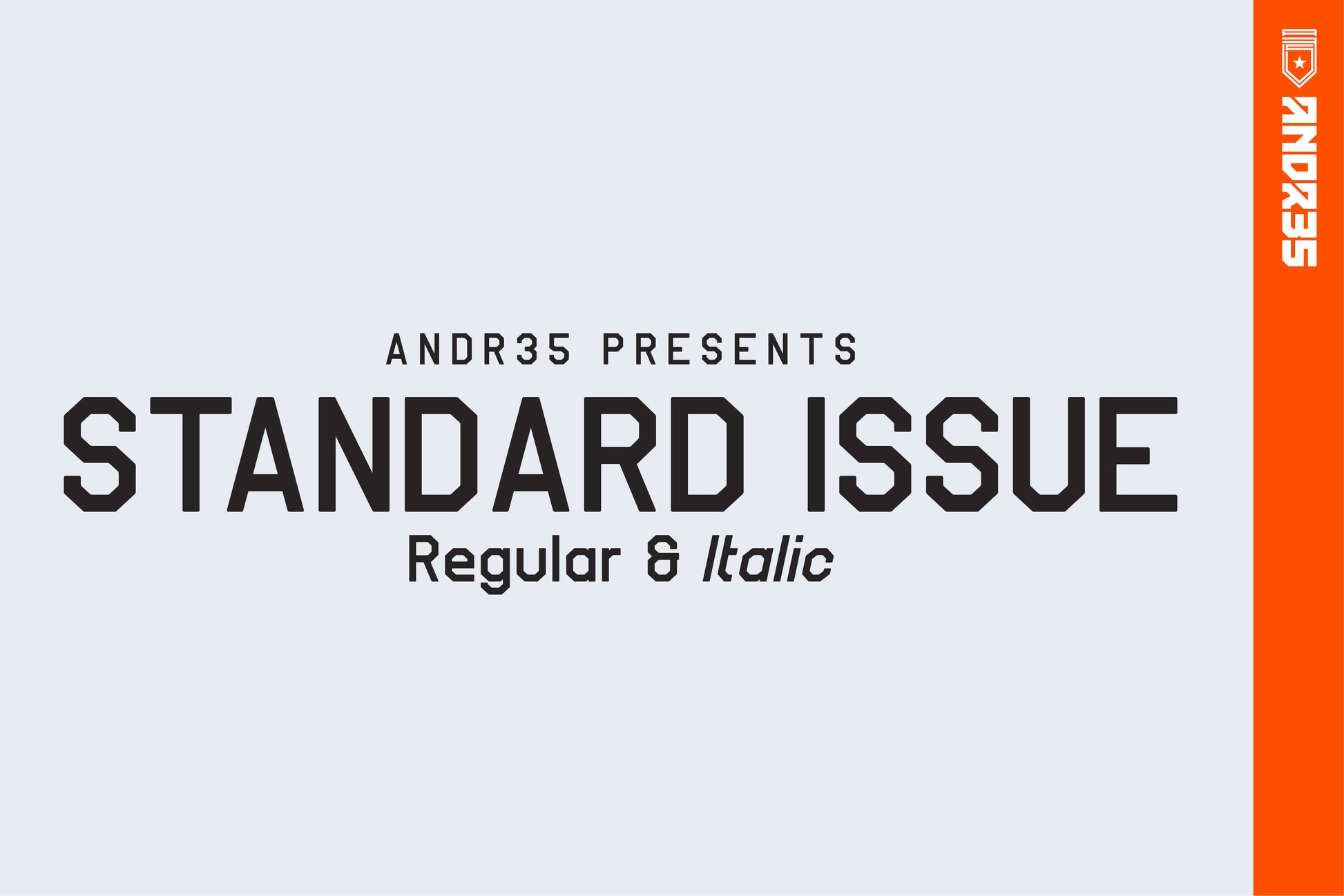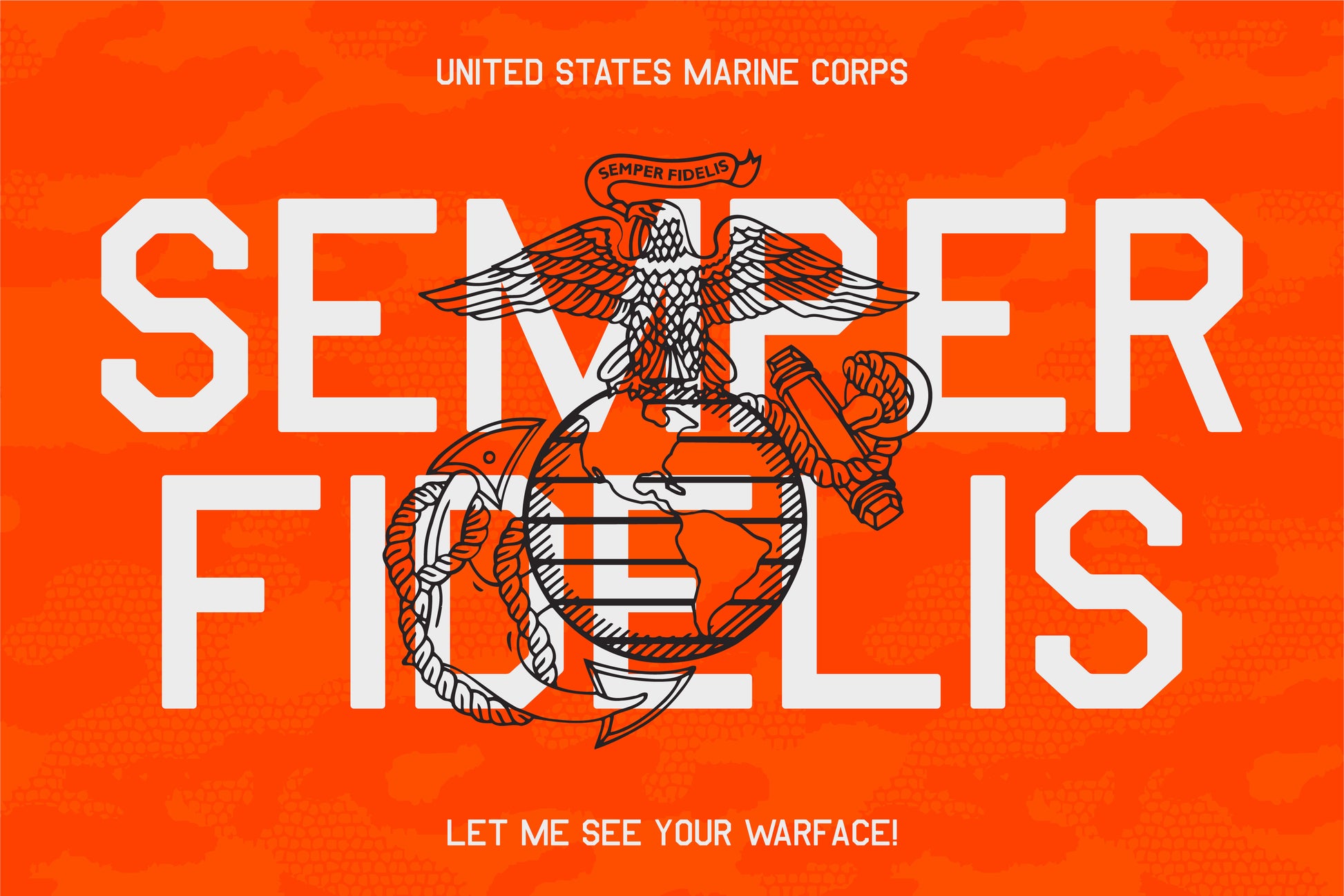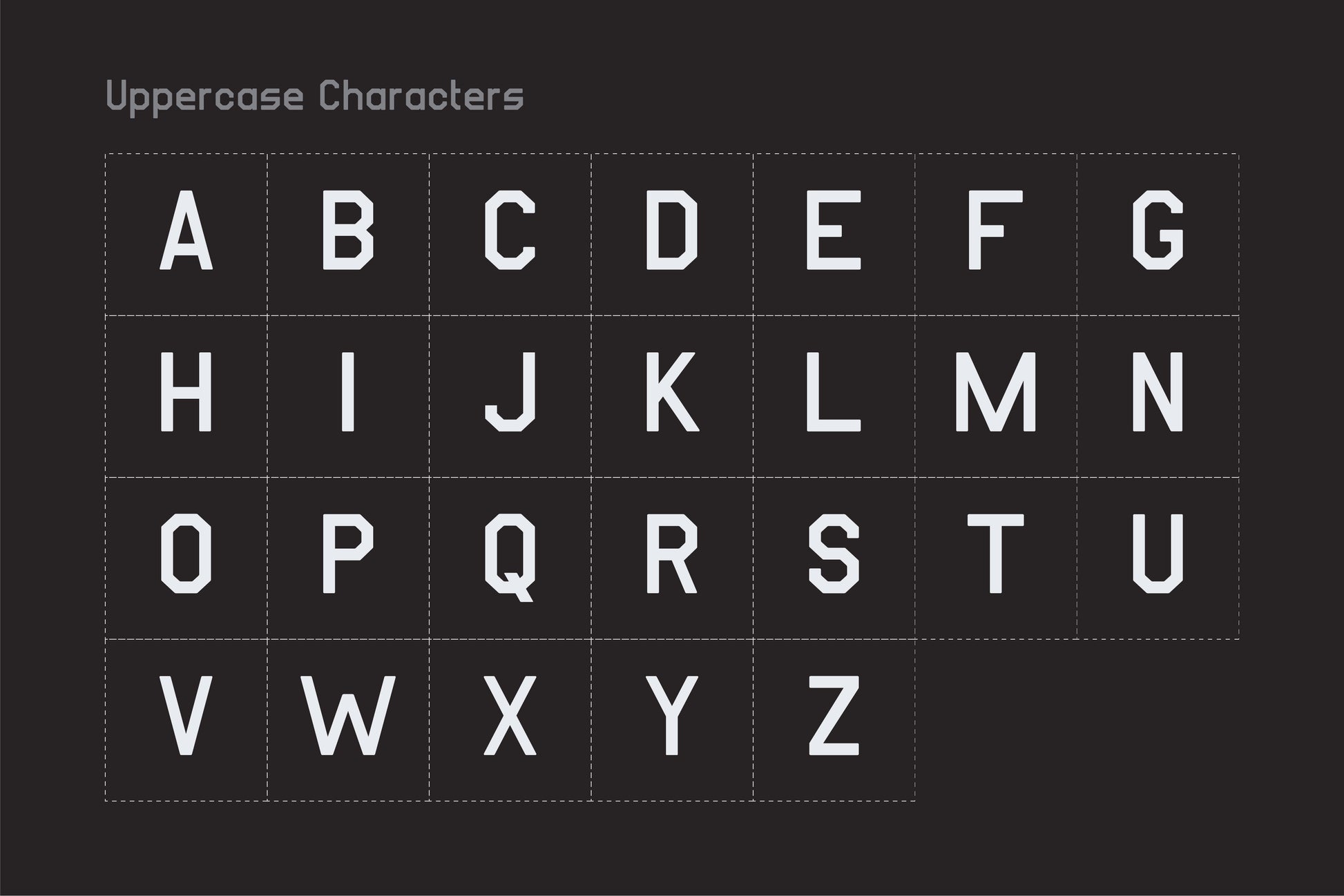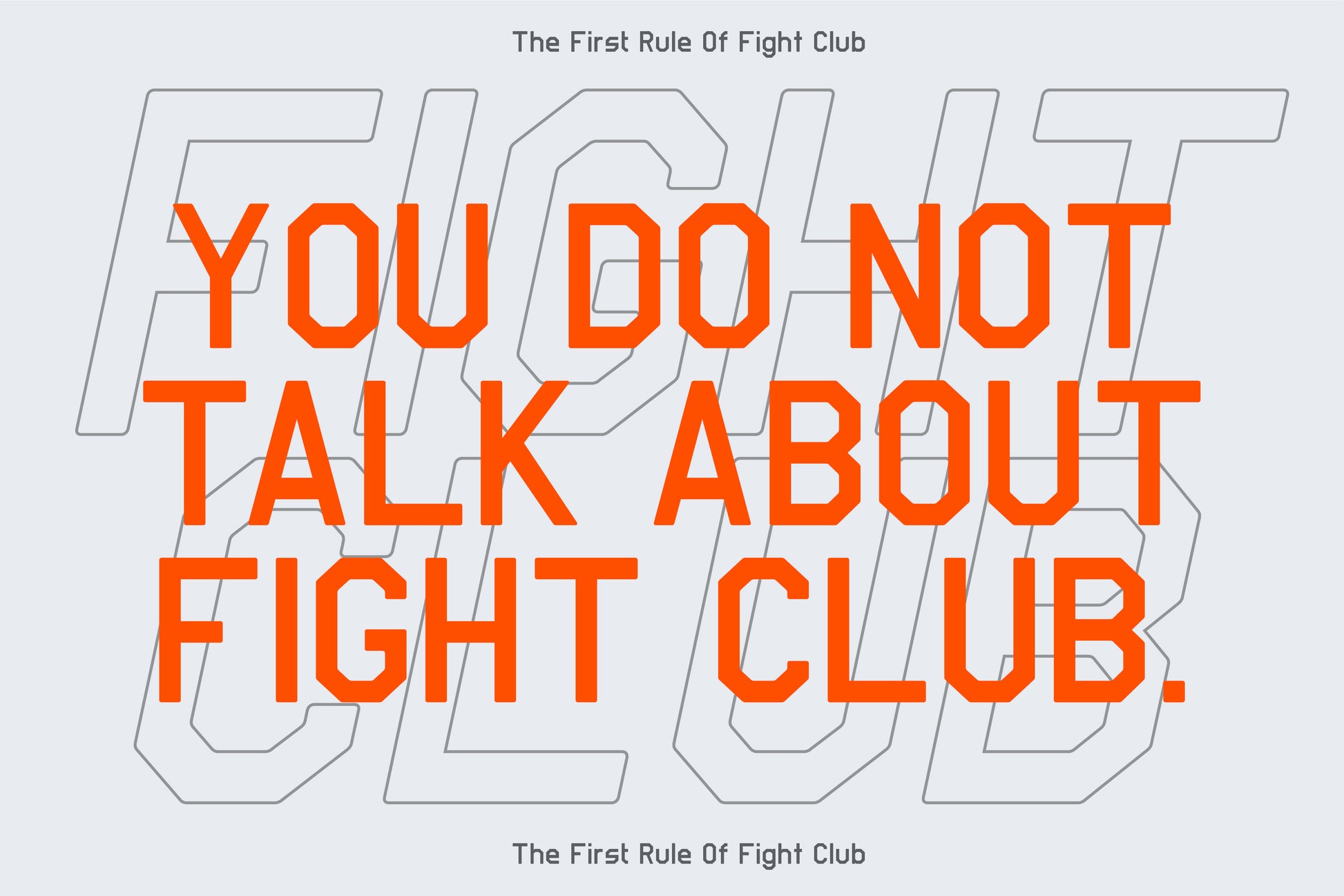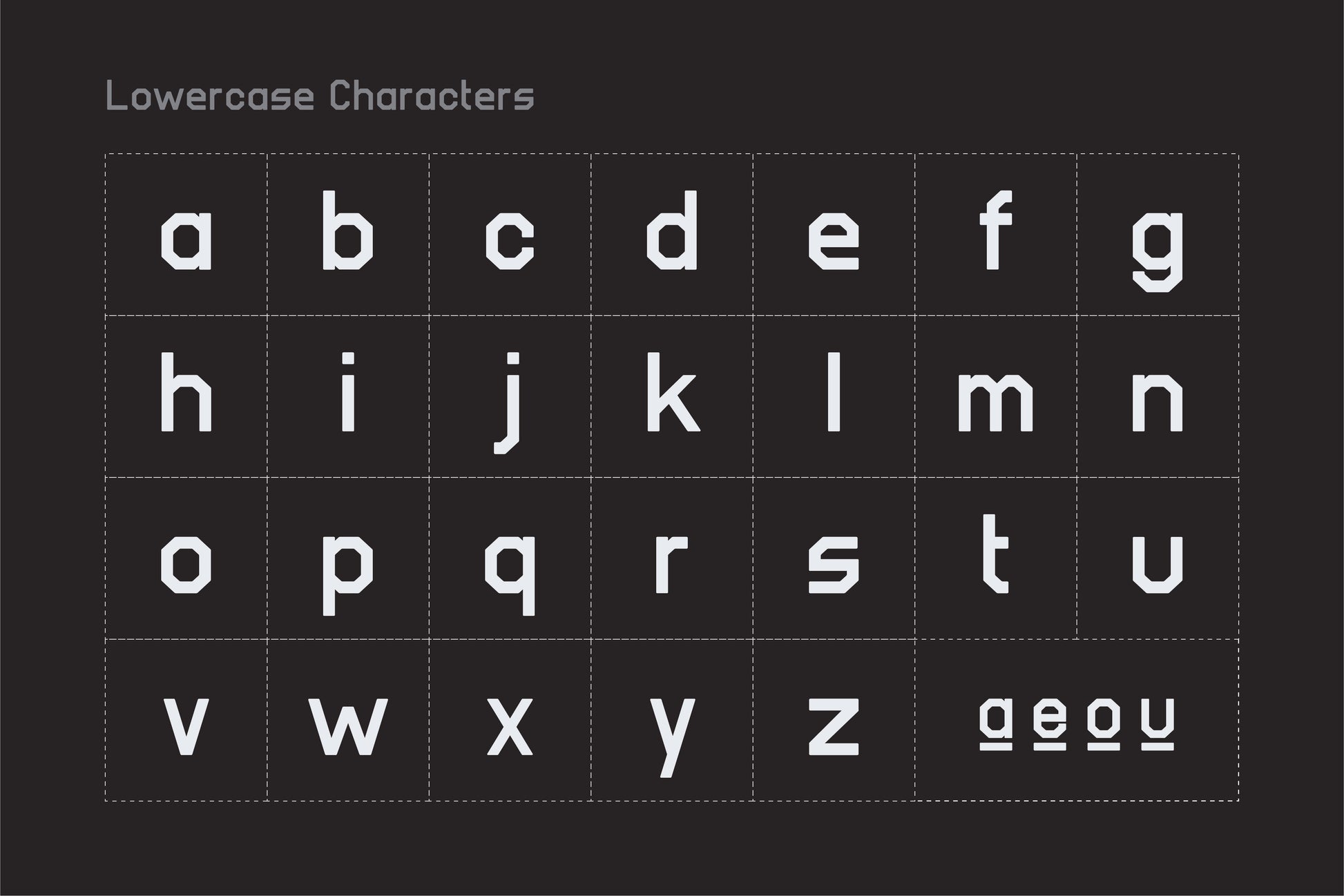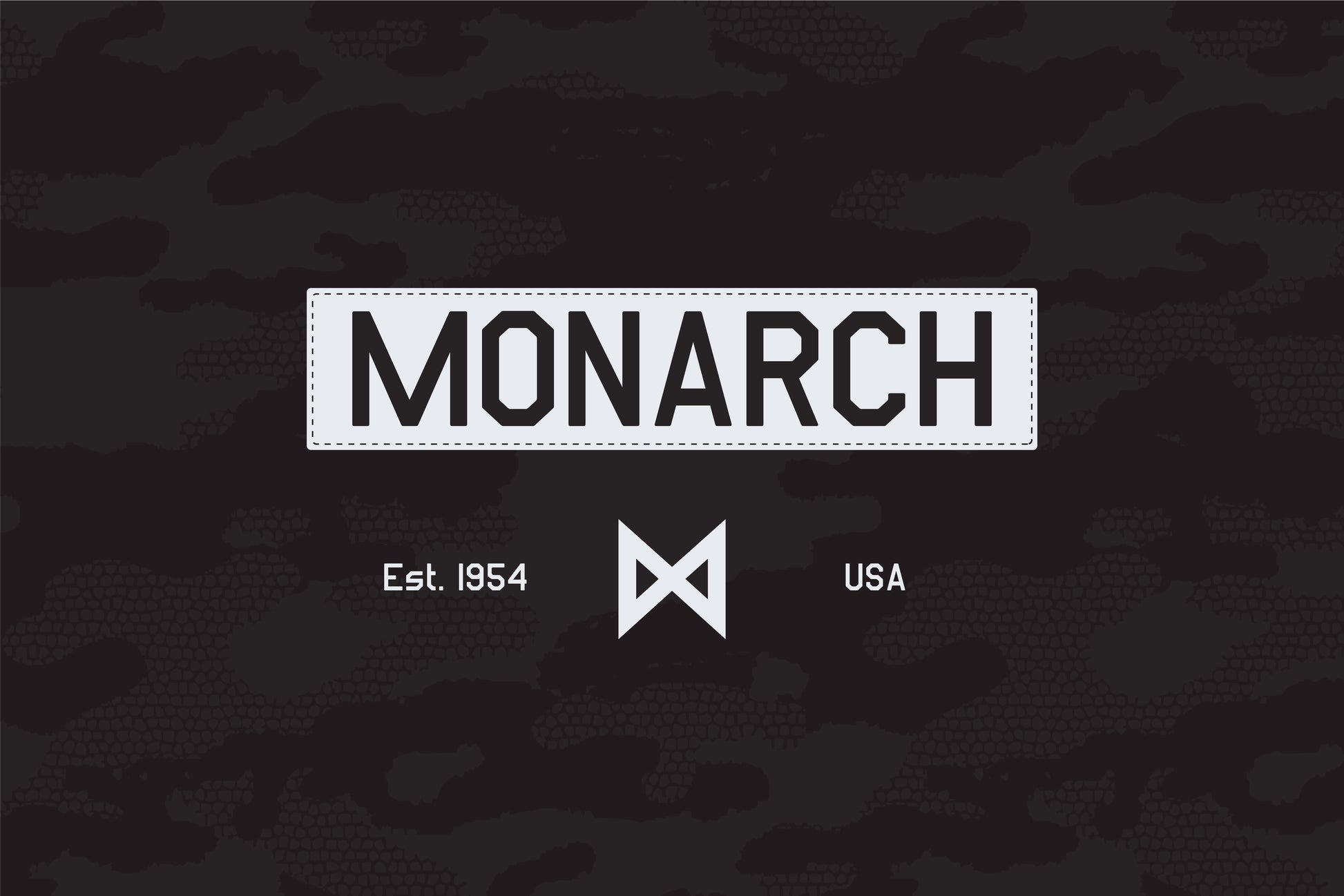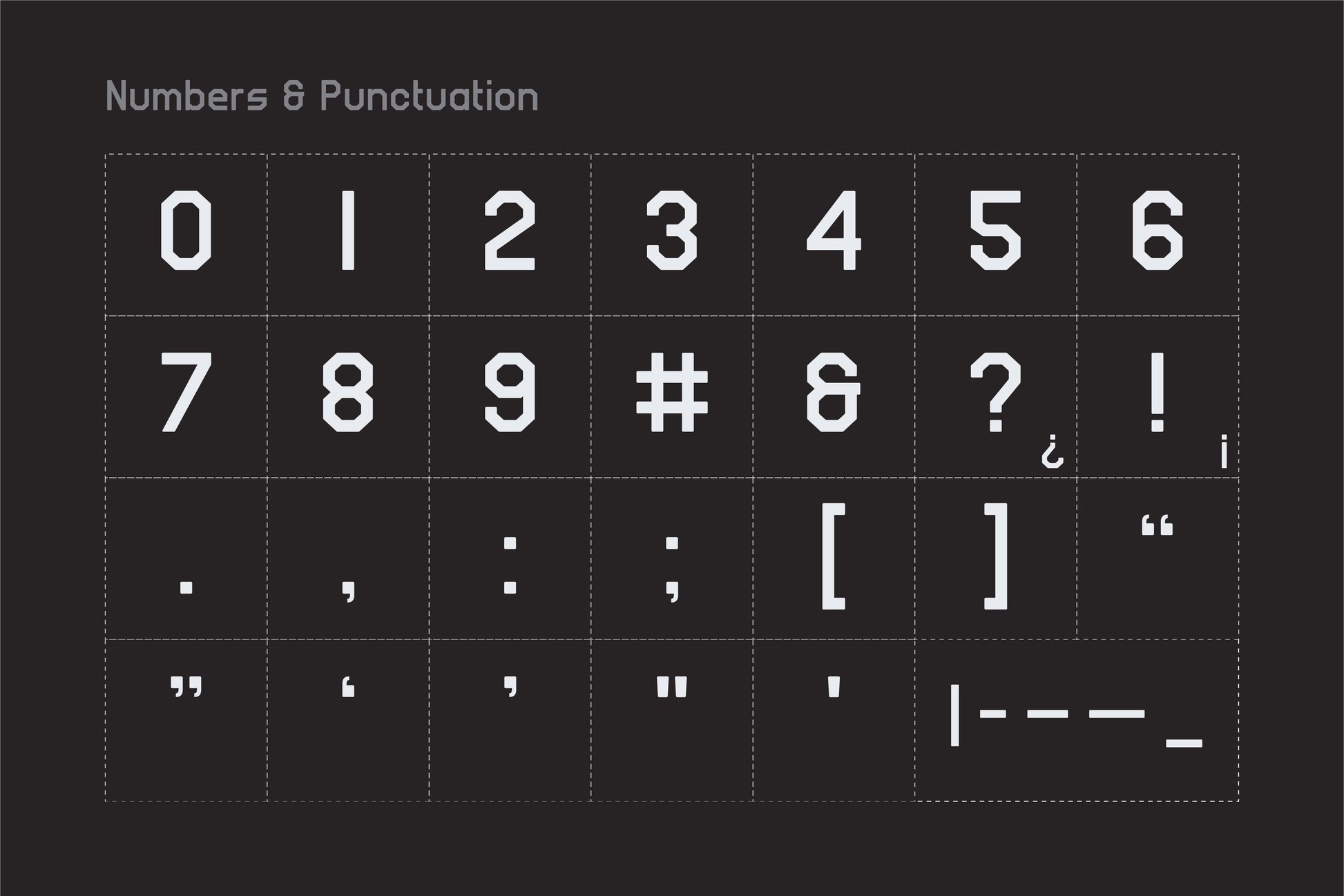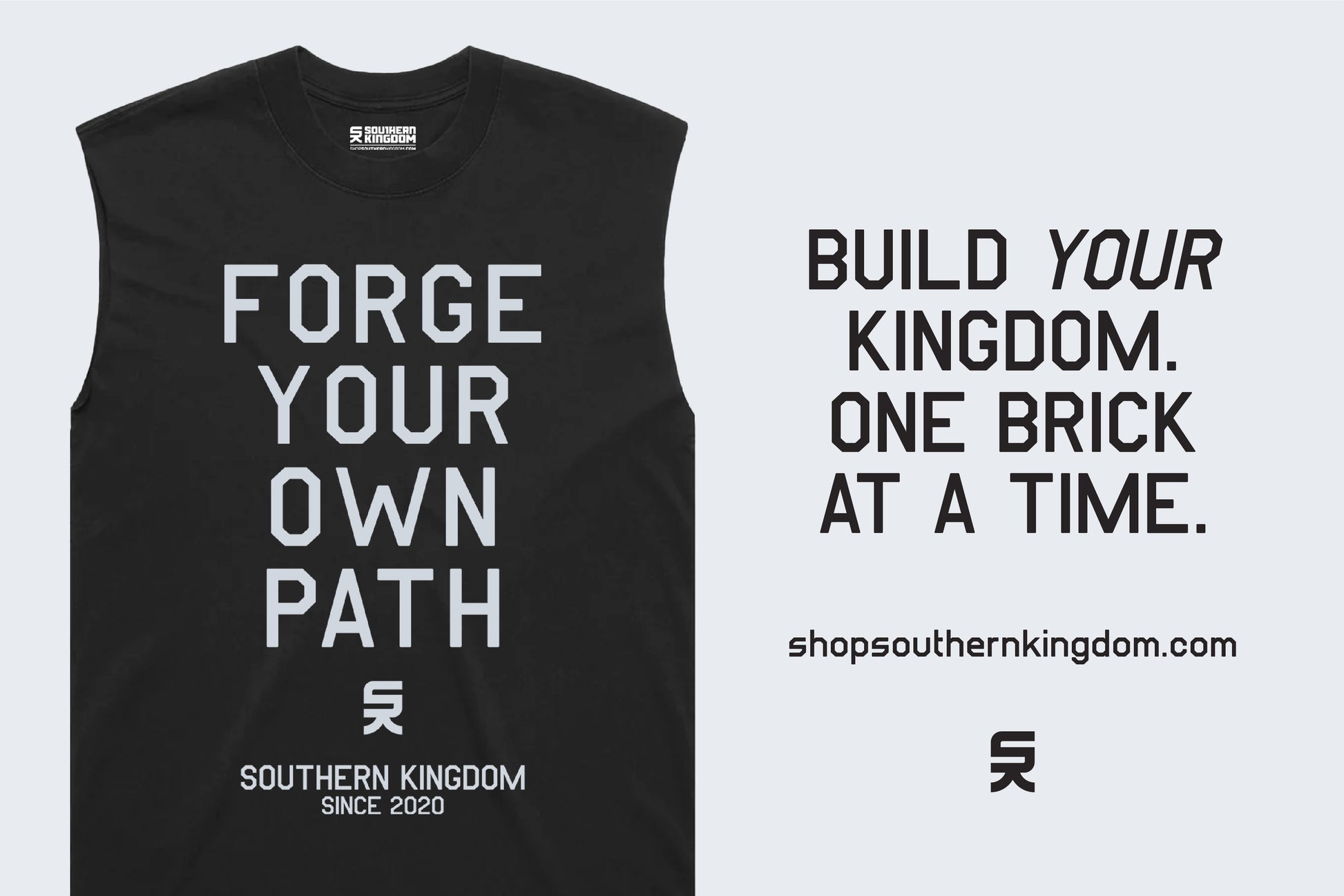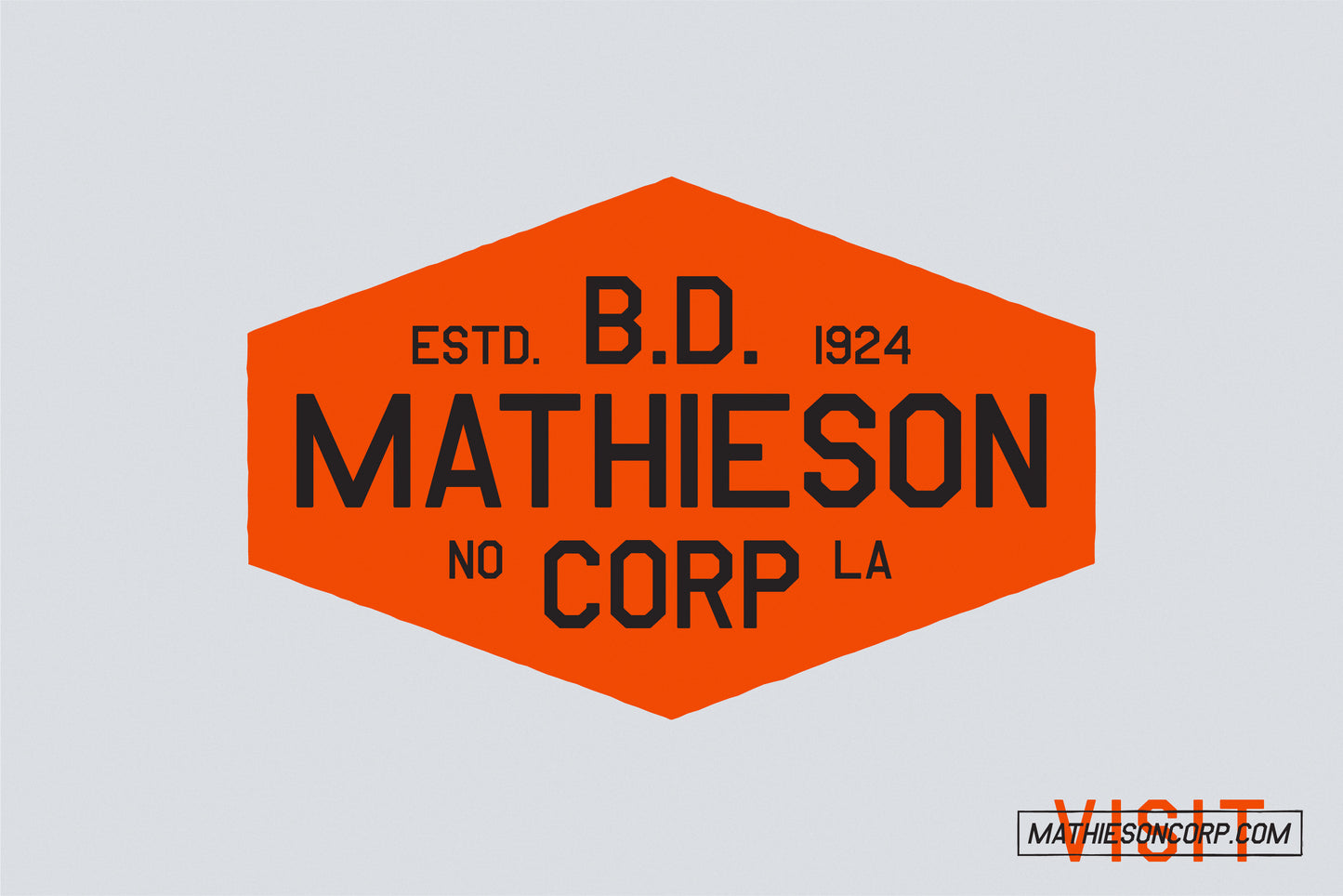
Standard Issue: Vintage Sports Font
Meet Standard Issue, a rugged, utilitarian display sans-serif inspired by vintage WWII aesthetics, military stencils, and raw, high-intensity athletic training gear.
Born from a mix of historic military surplus design and the bold, unapologetic typography found on modern gym apparel, Standard Issue is built for impact. It intentionally avoids digital perfection, leaning instead into a slightly raw, human feel that gives your layouts an immediate sense of authority and grit.
Most military and block-style display typefaces stop at a single weight. Standard Issue breaks the mold by including a slanted (Italic) version. It’s an urgent, fast-paced slant designed to inject motion, speed, and aggression into your designs.
Use Standard Issue for apparel, branding, vintage/heritage logos and editorial design like a poster or zine layout.
Features Include:
• Upper and lowercase letters
• Minor punctuation
• Slanted version to give you some speed